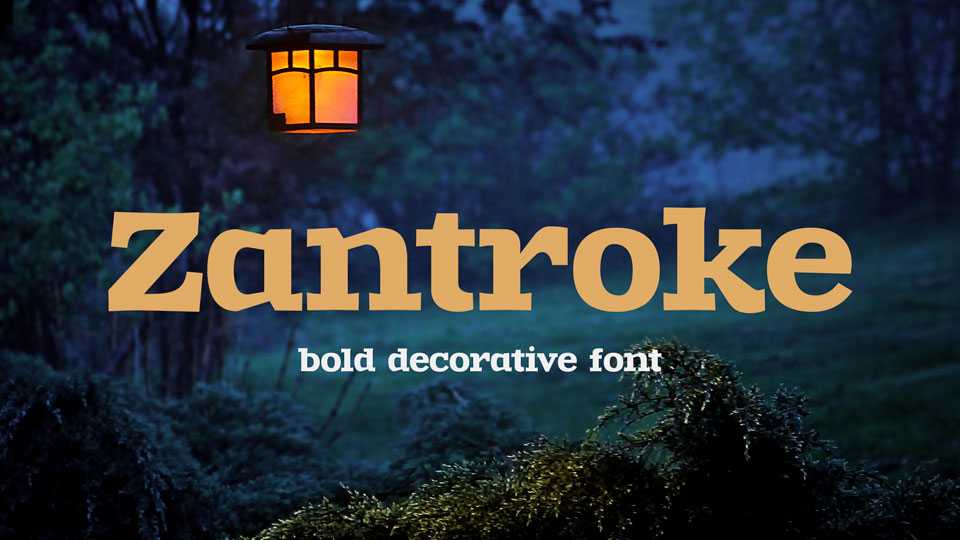
Download Zantroke font, a bold, strong decorative font. Perfectly suits for attractive headlines, posters, banners, covers, logos, branding and creative projects.
Designer: Grzegorz Luk